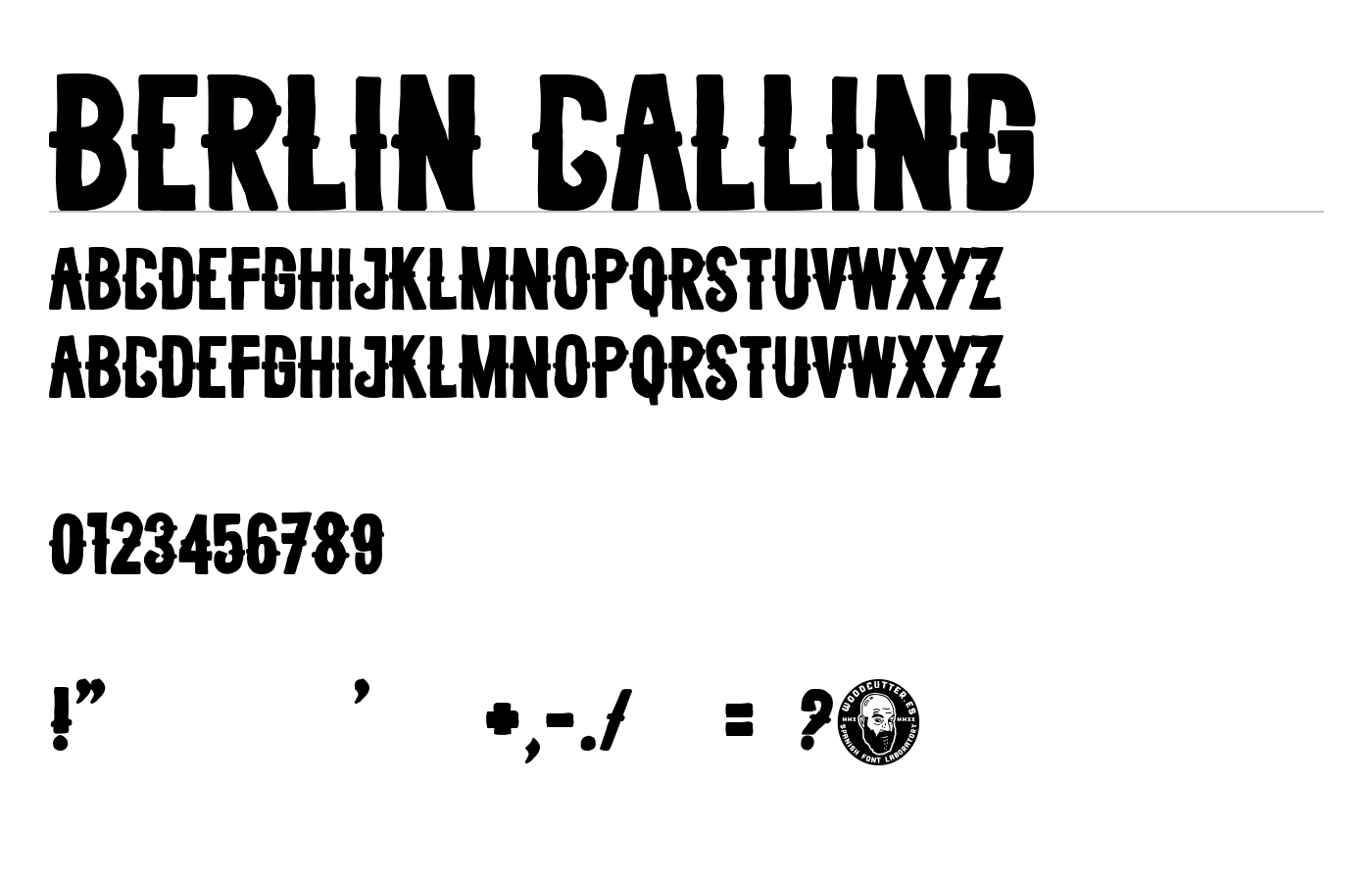
Berlin Calling is a bold, condensed sans serif font with a playful, hand-crafted feel. Its thick, uneven strokes and slightly irregular letterforms give it a lively, urban character that works great for eye-catching headlines, posters, and branding that wants to convey energy and creativity. This font is ideal for modern, informal projects that seek to stand out with a strong, distinctive voice.
Berlin Calling Font
About Berlin Calling Font